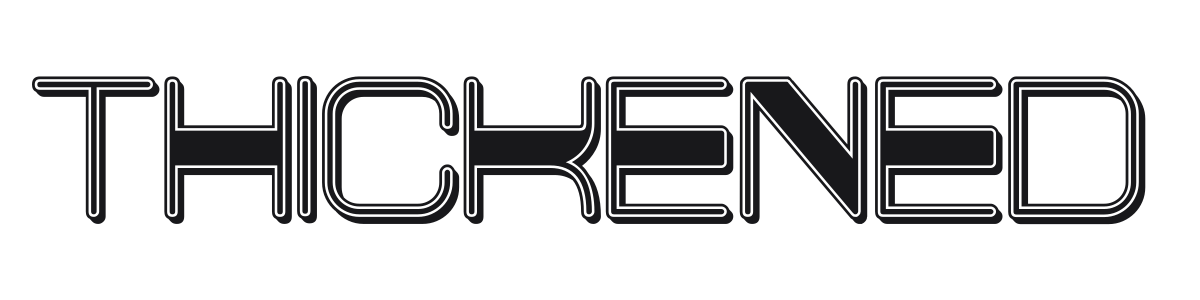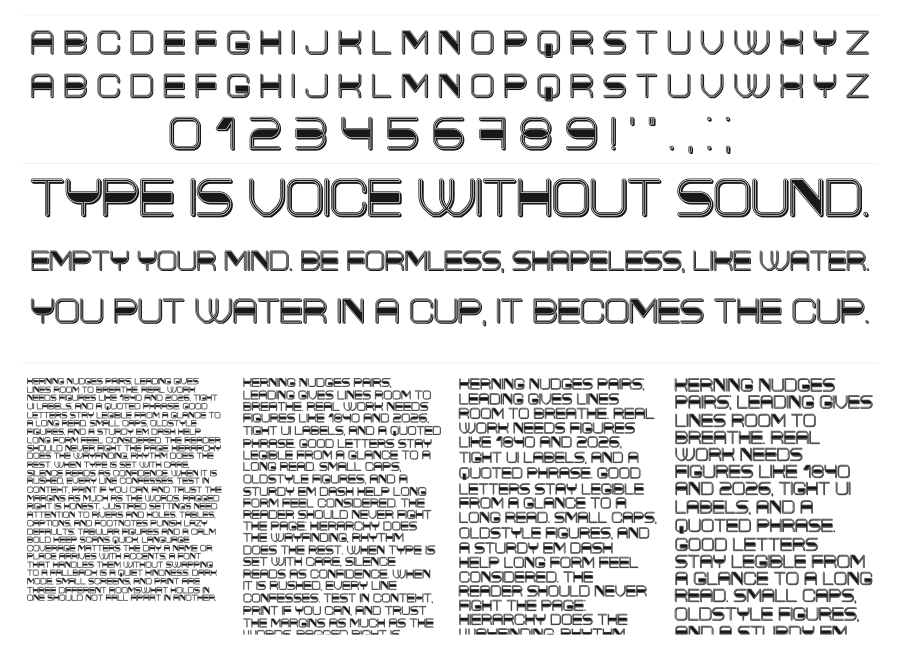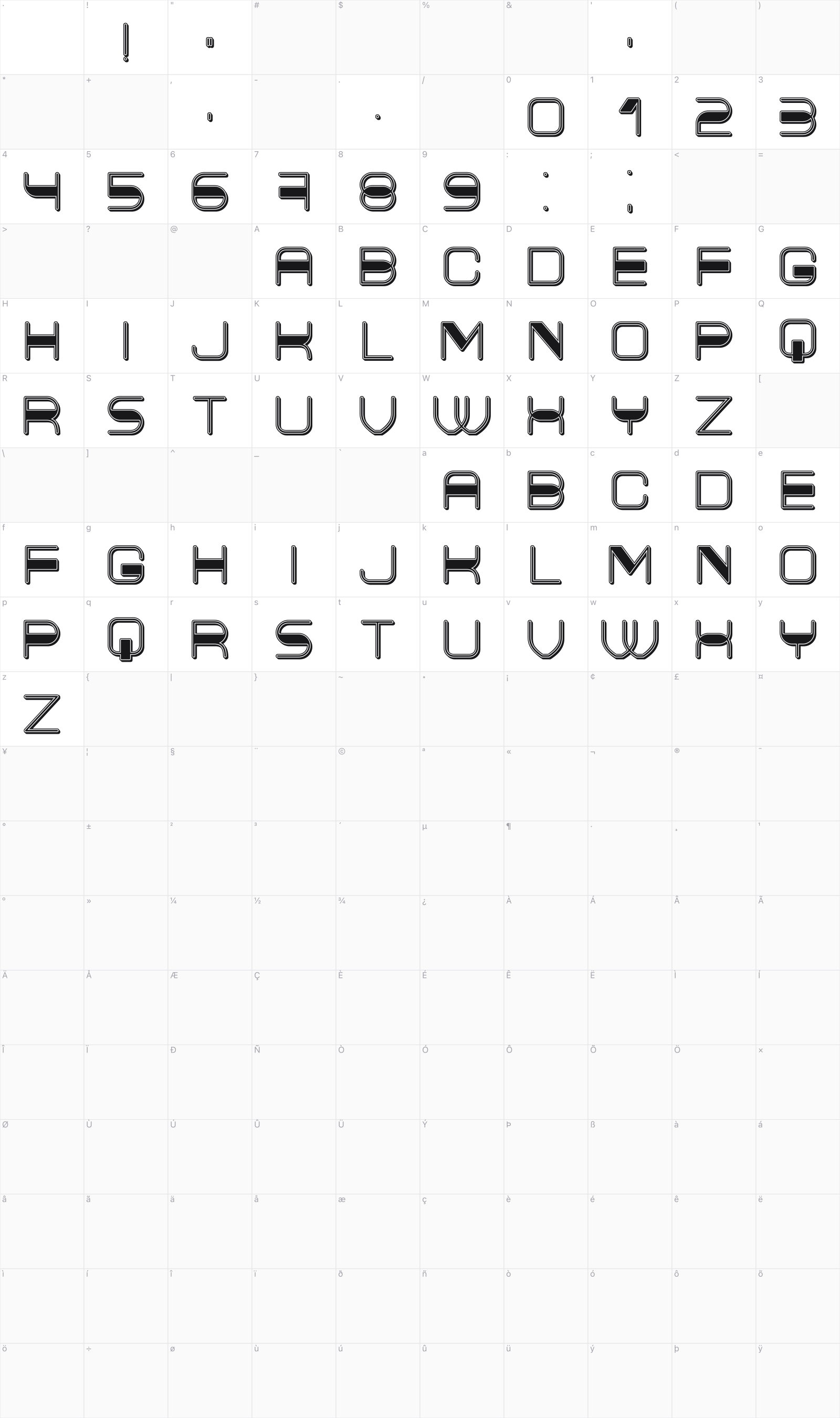
Thickened
Thickened is a heavy geometric display font built around a bold inline layering effect that mimics chrome tubing or neon signage. The rounded square characters carry a strong 1970s-80s retro-futurist energy, somewhere between a sci-fi movie title and a stadium scoreboard. It commands attention at large sizes and suits anything that needs brash, unapologetic weight.